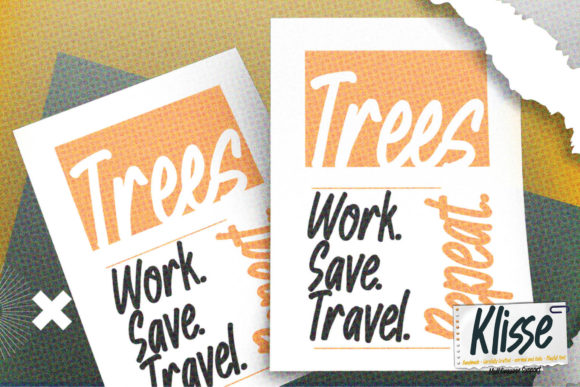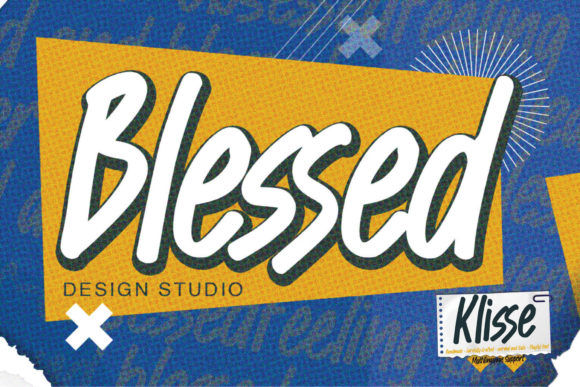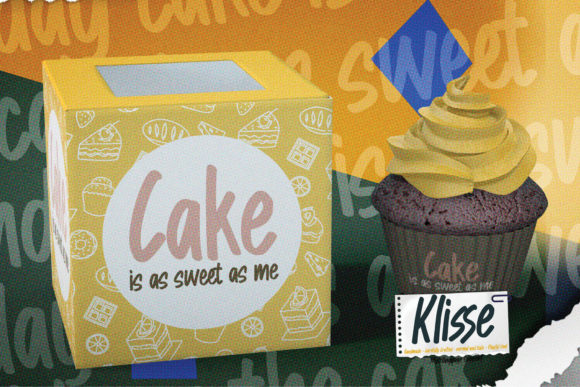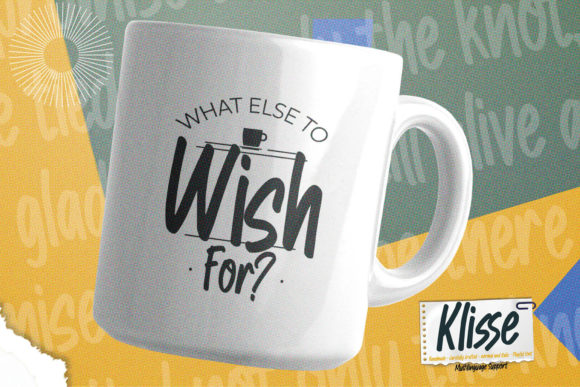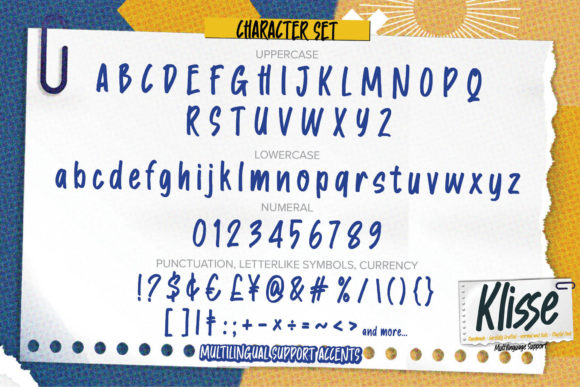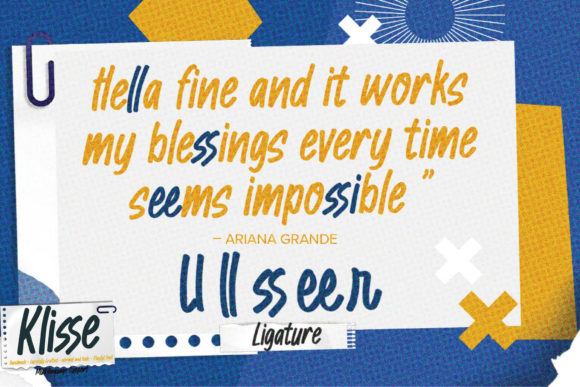
Introduction to Klisse Font
Klisse is a handmade carefully playful font display font that will make your designs look modern, unique, and fun.
It’s perfect for labels, quotes, posters, DIY projects, branding, packaging, greeting cards, websites, photography overlays, signs, window art, scrapbooking, tags, and so much more .
Key Features of Klisse Font